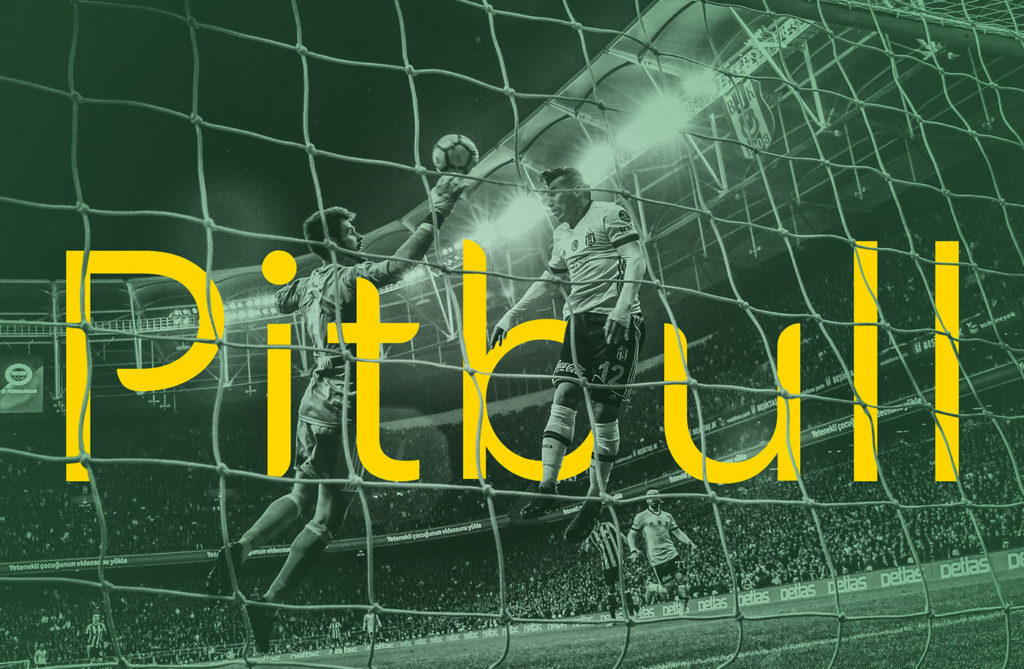
Medel Font (Free)
Free download this Medel Font by Ozan Karakoc. A modern sans-serif font that is free for your personal and commercial use.
It's named after a Chilean football (soccer) player, Gary Medel, who currently playes for Besiktas JK. Enjoy!